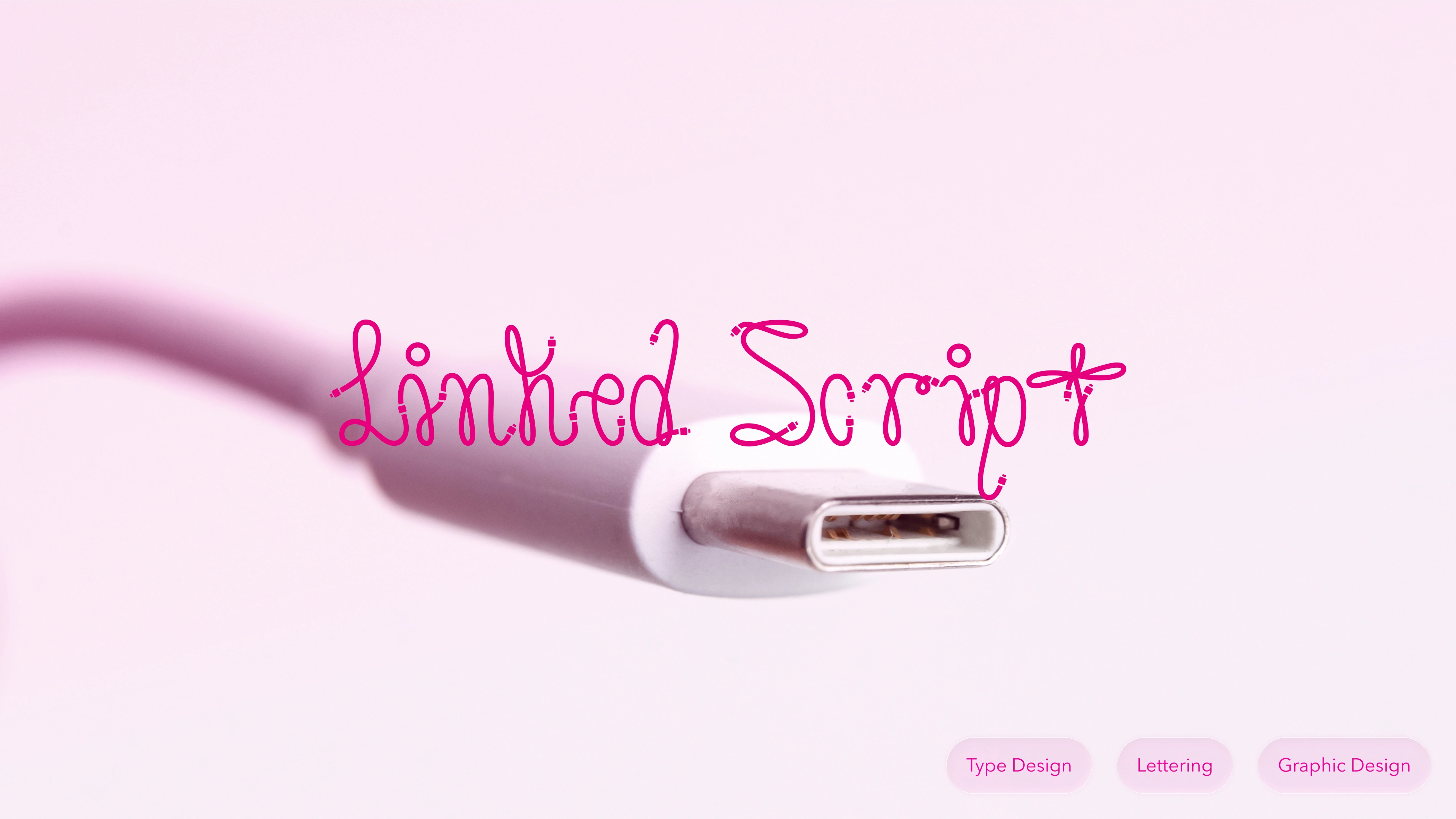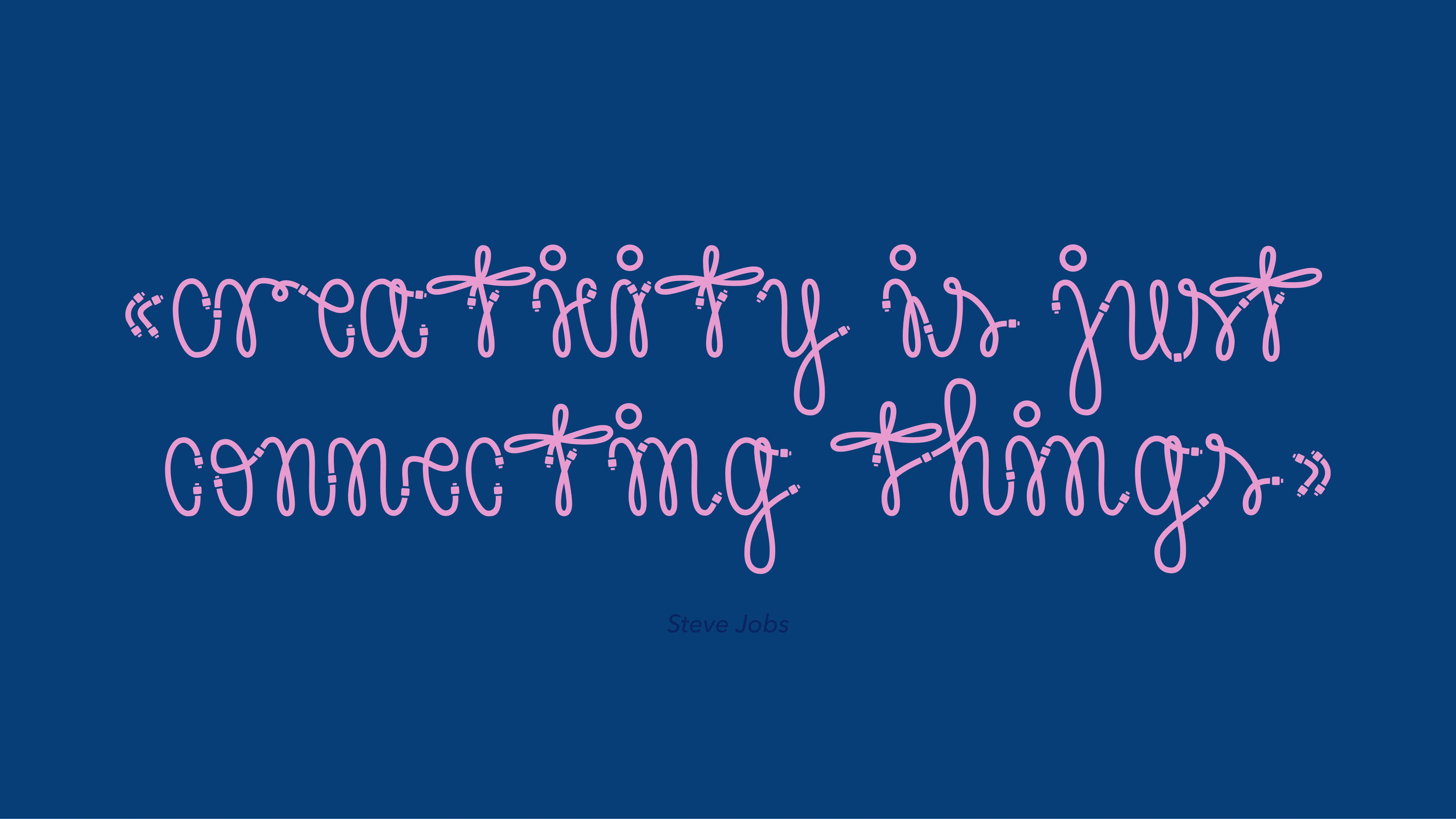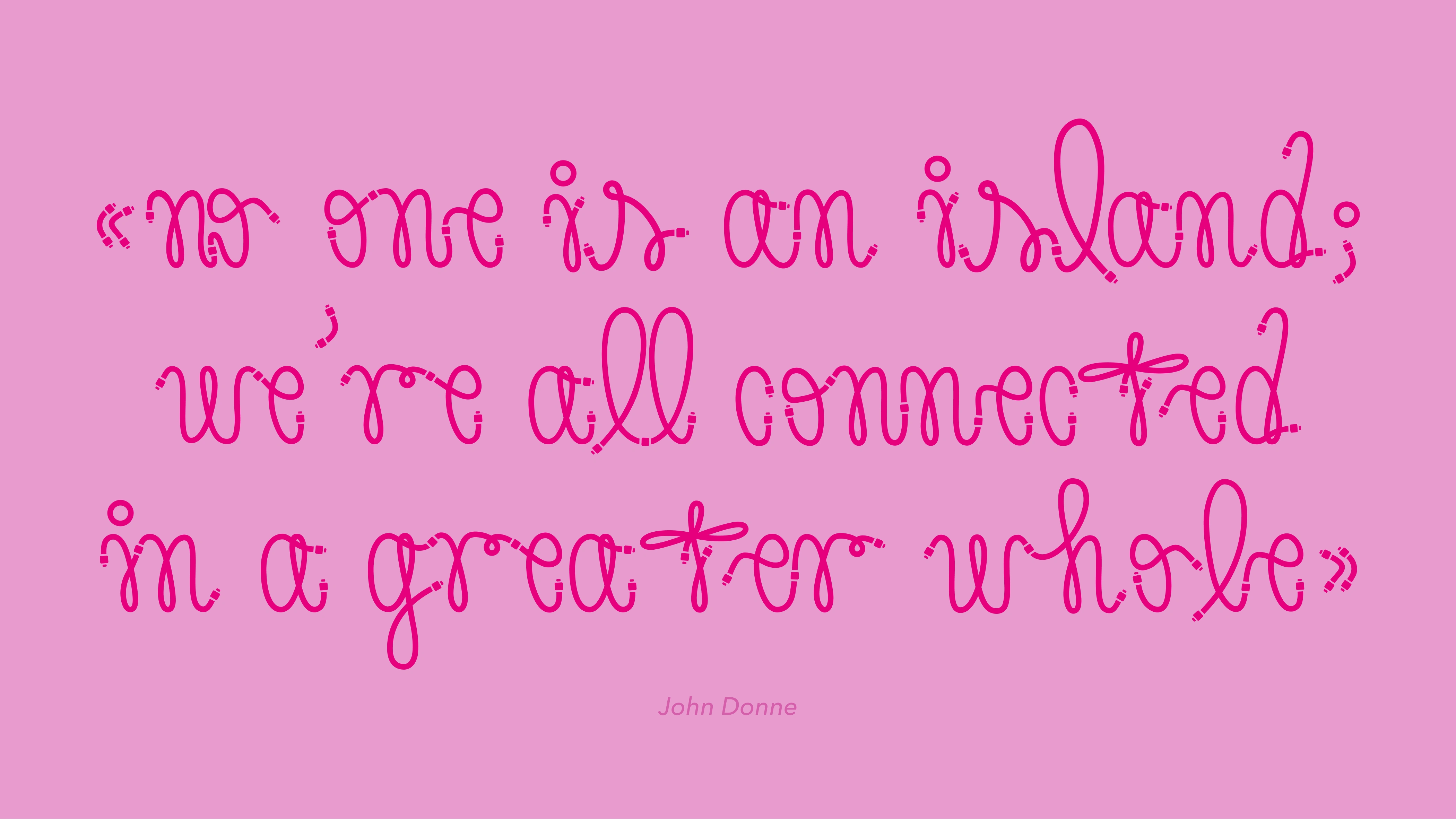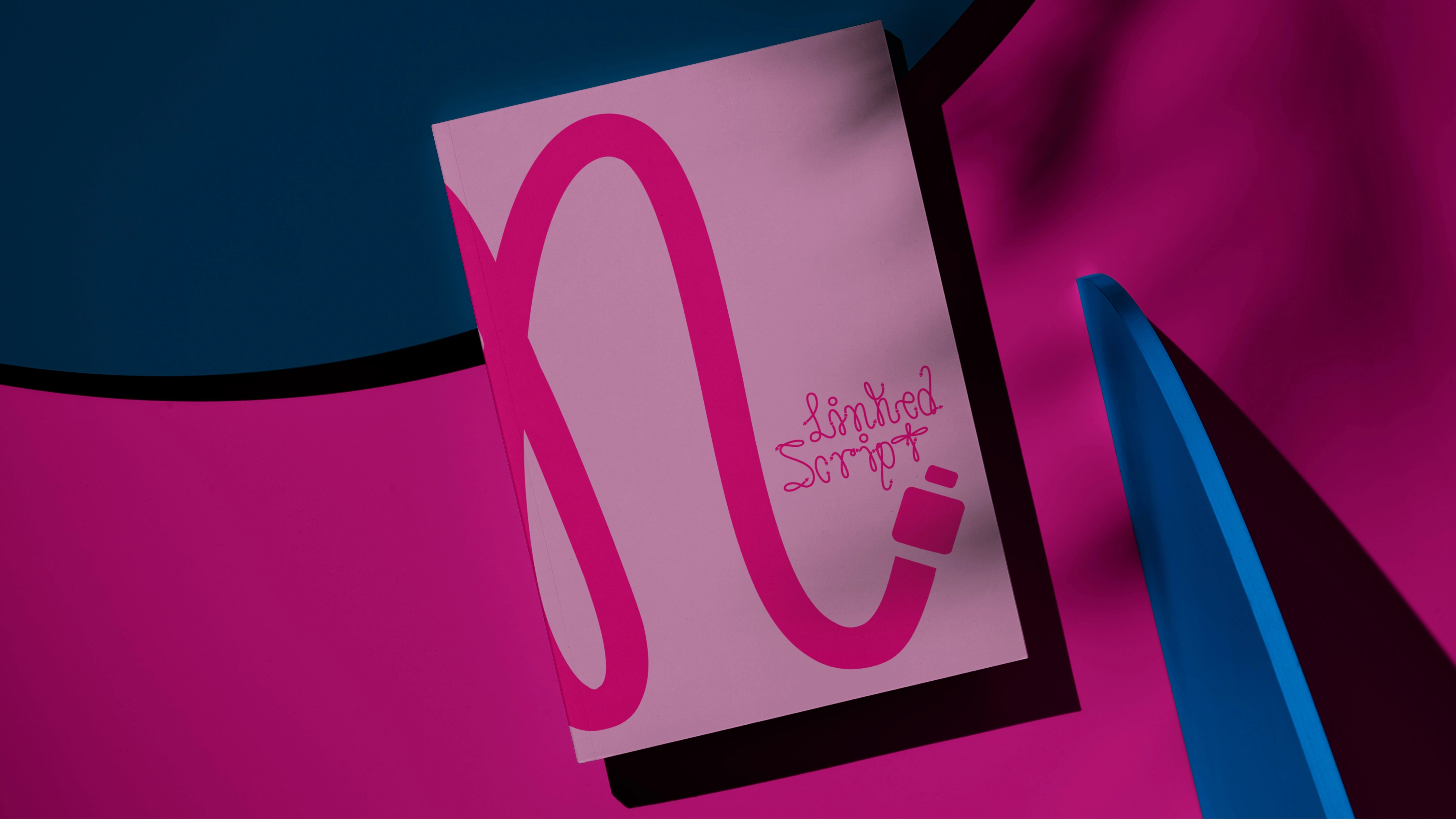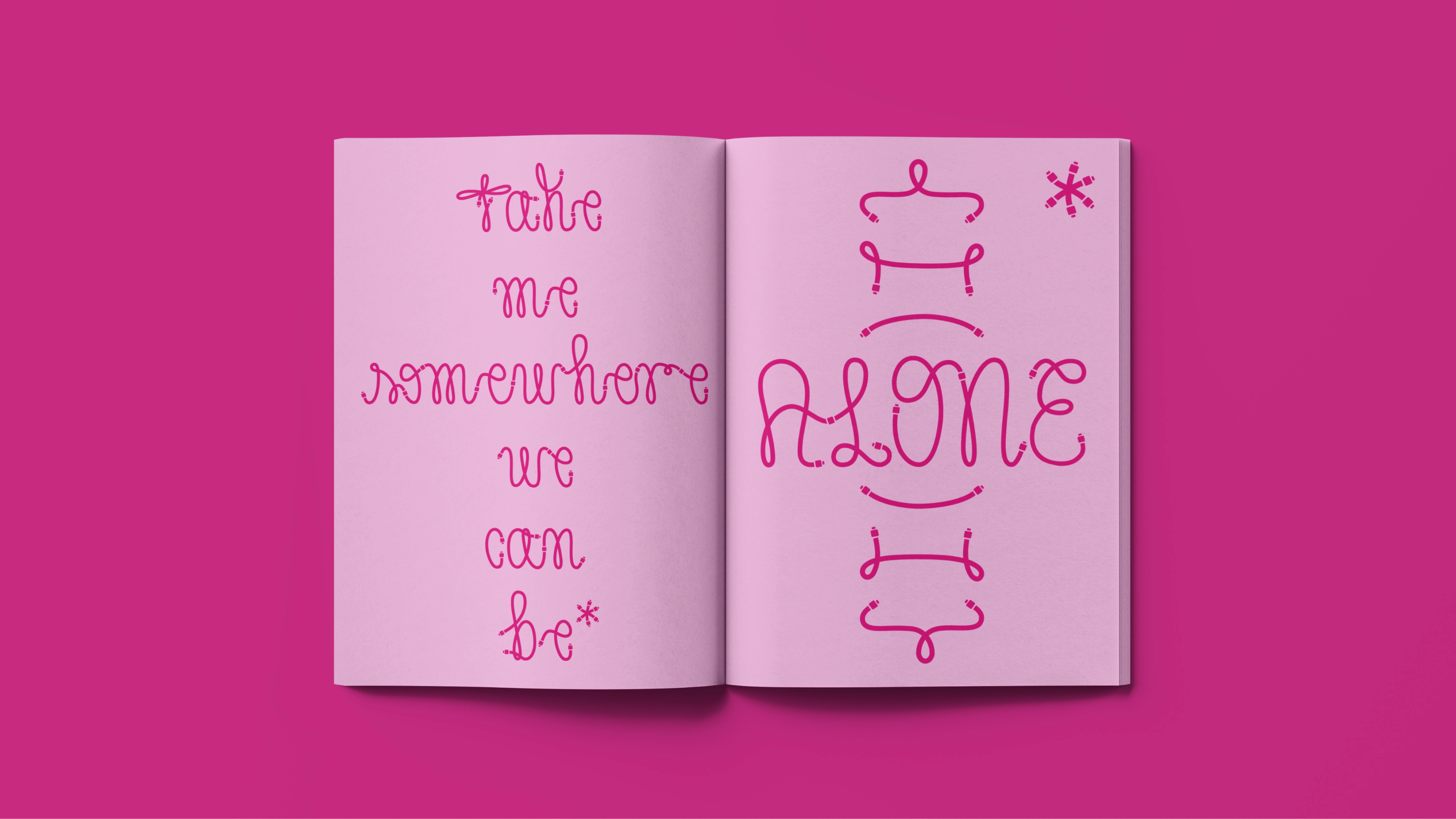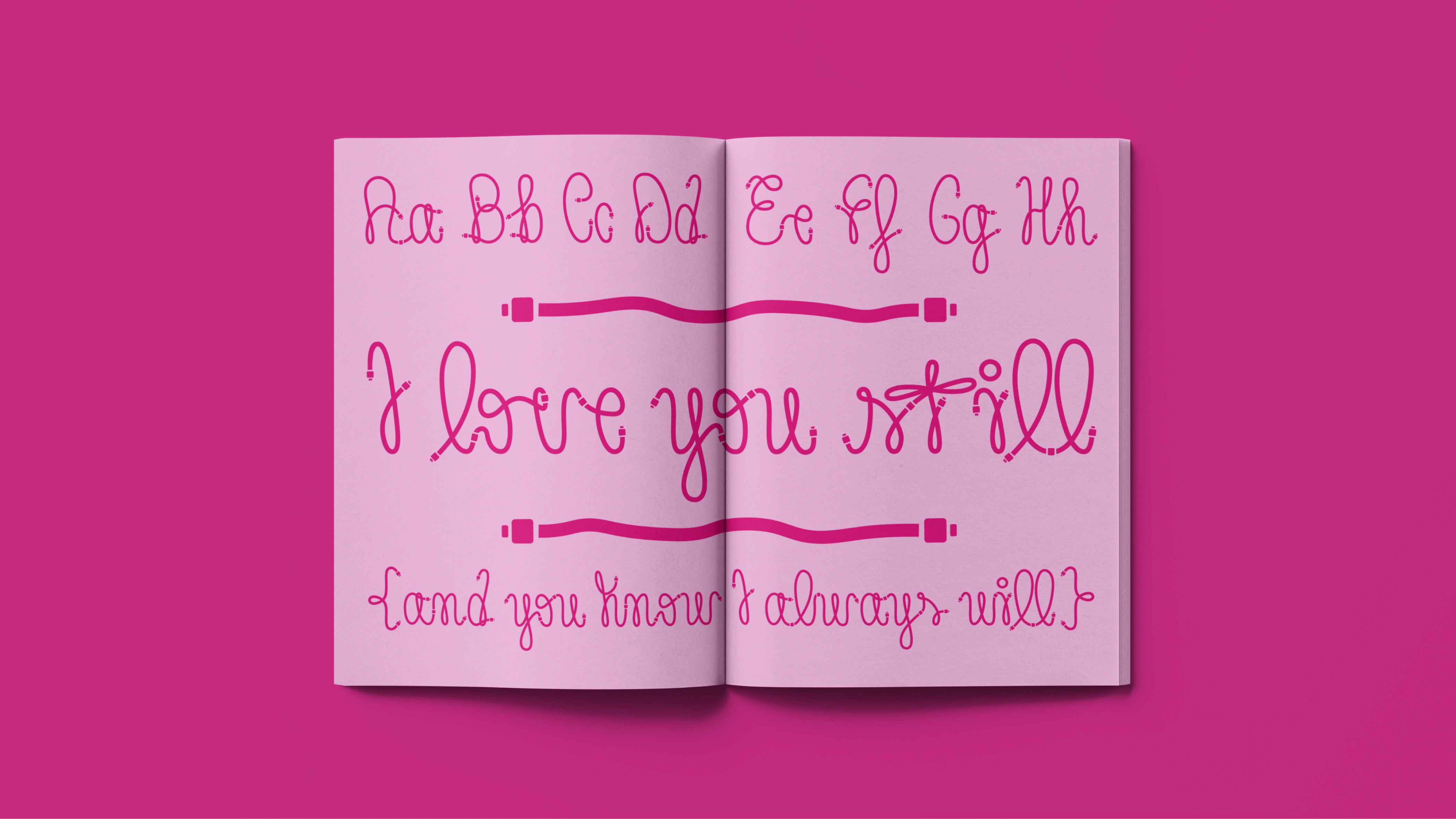
Linked Script started with a simple question: what if a typeface could embody the idea of connection itself? The answer came from the most universal connector of our time — the USB-C cable. Its form became the module: a single, continuous stroke with two connectors at each end, capable of linking to anything. In Linked Script, every letter is built from that same module. The result is an alphabet where writing is literally connecting — letter to letter, word to word, meaning to meaning. The typeface was applied to an editorial project collecting lyrics and film verses about love — because if the USB-C is the metaphor, love is the reason the cable exists in the first place.